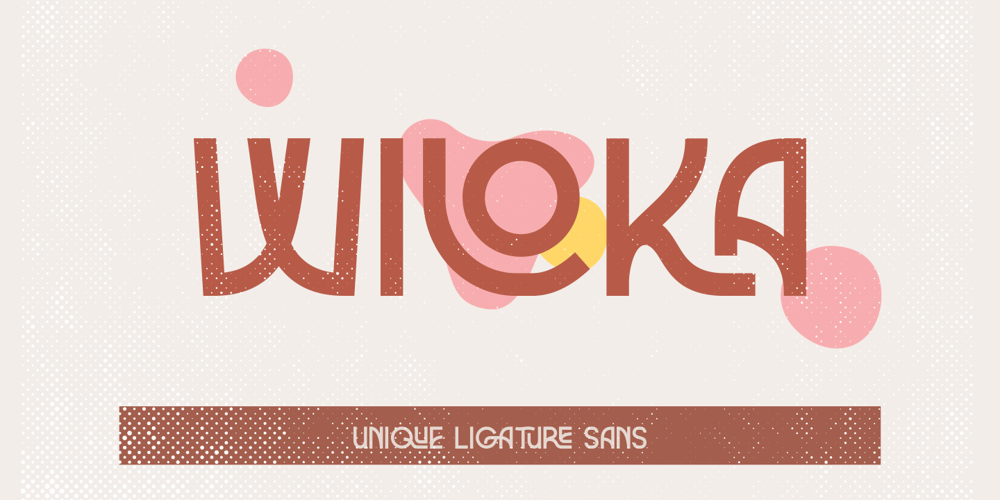
Wiloka
Wiloka font
Wiloka Font Family was designed by Riyadh Rahman and published by Ergibi Studio. Wiloka contains 1 styles and family package options. Introducing Wiloka is a quirky and fun sans, perfect for branding, headlines, posters, books, magazines and packaging projects! Mainly characterized by a modern look with a straight shape, it goes well with vintage styleThis font has ligatures which add a unique style to the characters. Additionally, it is a unicase typeface, so you can also play with uppercase and lowercase initials.Features Regular Version Uppercase & Lowercase Number & Symbol Ligatures Multilingual and PUA Encoded If there is a problem, question, or anything about my fonts, don’t hesitate to ask! Big Thanks ~ Ergibi Studio